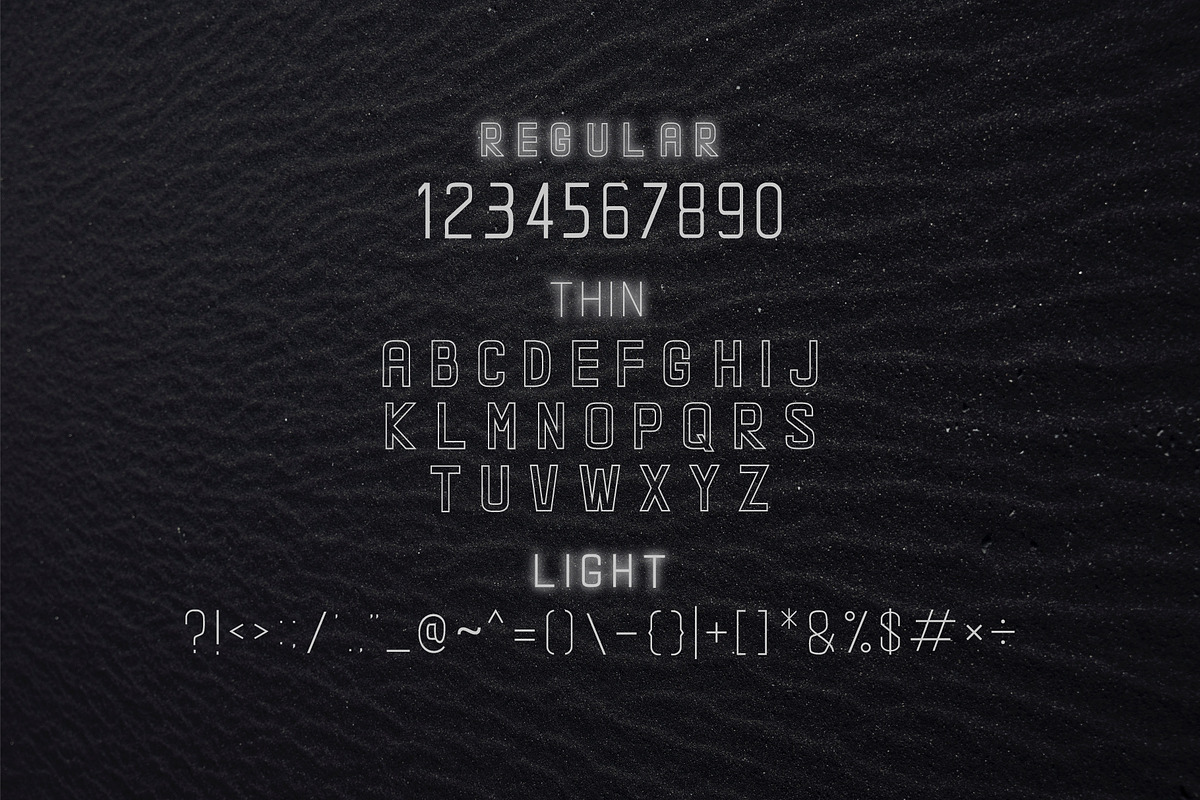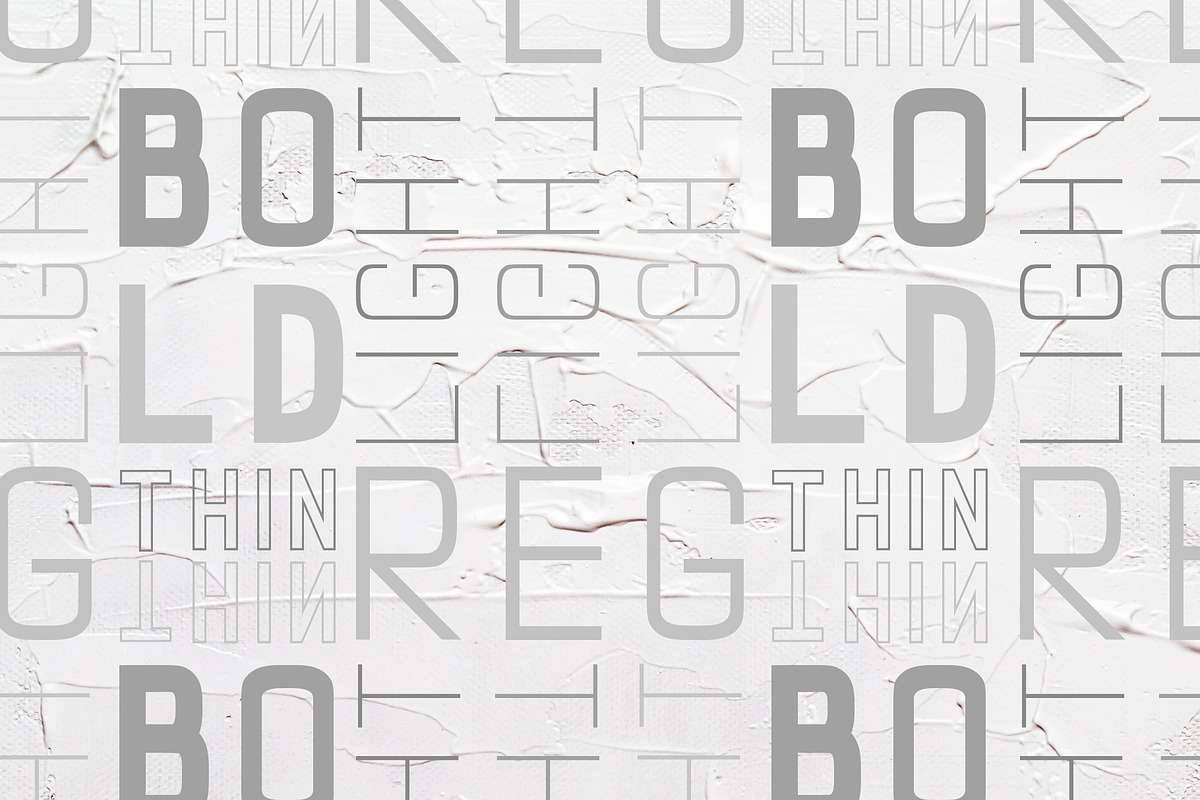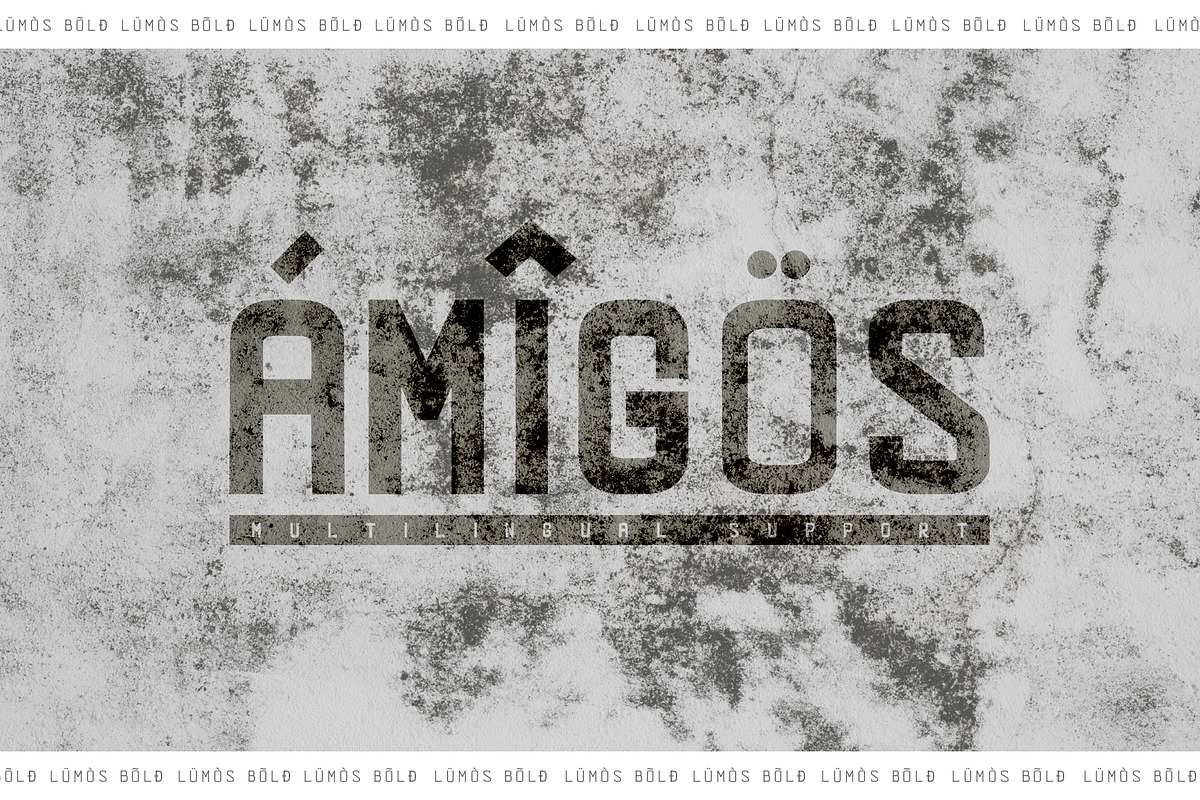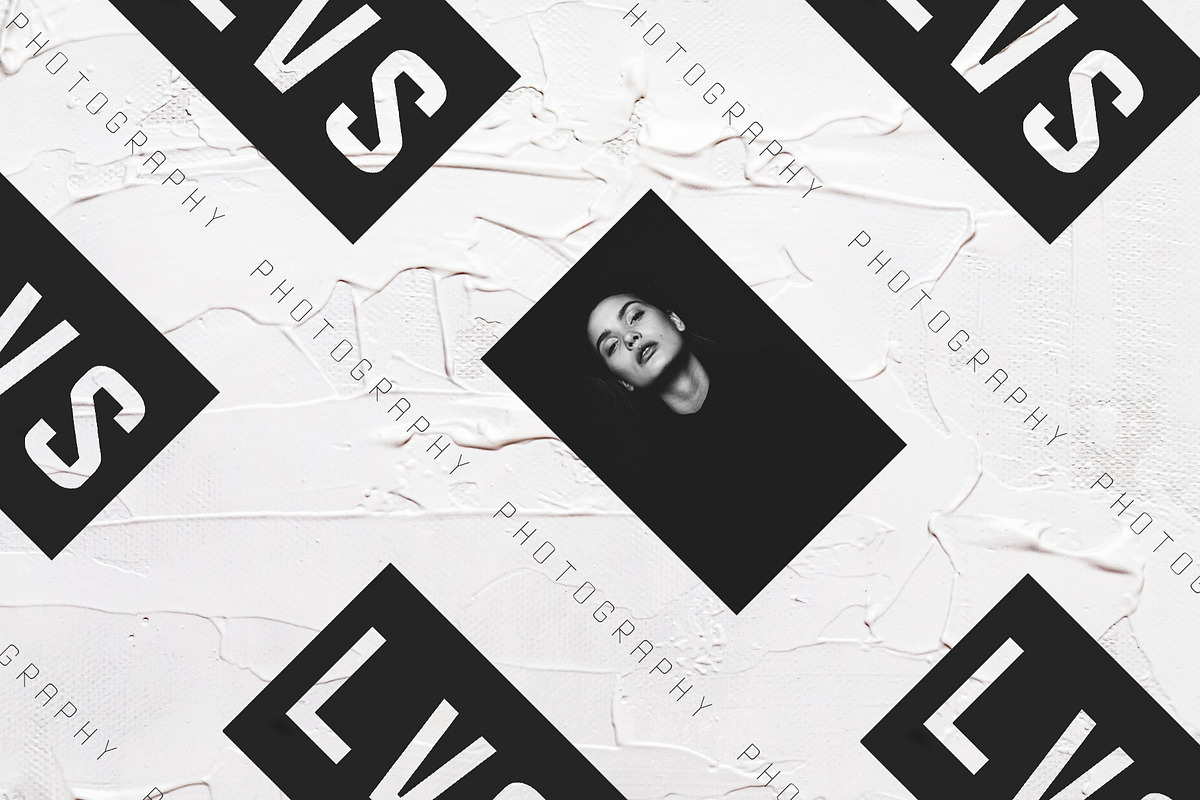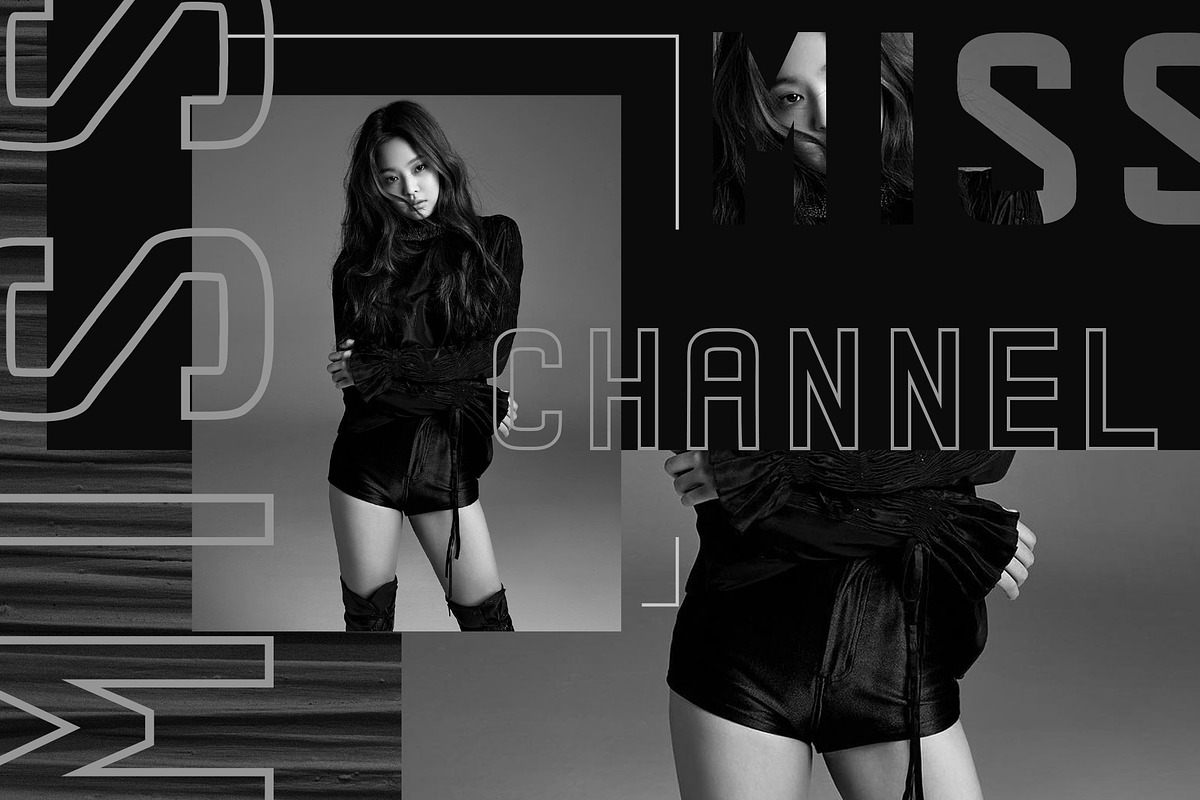
LUMOS - A Consistent Font Family
Lumos is a modern and consistent sans serif this font family comes with consistent edges, supporting a smooth and clean look. Fonts include uppercase alphabet, numbers, and common symbols, and multilingual support
Lumos includes four all-caps fonts:
Lumos works very well in all brands, logos, magazines, films, covers, posters, etc. Different sizes provide unique and visually ordered effects, two or more types when combined, will be very cool, and very supportive for any project.